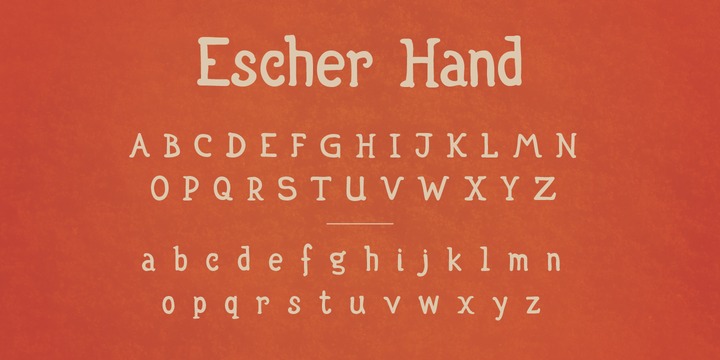
This font set is based on the lettering styles and optical artwork of Dutch artist Mauritius Cornelius (M.C.) Escher. Escher Regular is an alphabet based on the artist’s more formal lettering, while Escher Hand is a more casual, yet versatile, handwritten-style type. Rounding out the set is a collection of extras drawn from and inspired by Escher’s work. Authorized by Cordon Art B.V.
P22 Escher Hand